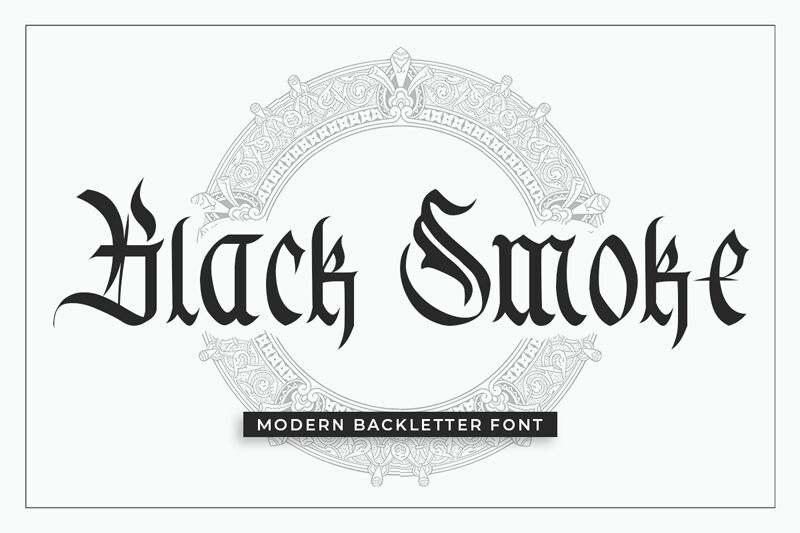
Blacksmoke
Black Smoke, the brainchild of brilliant designer Kong Font, is a captivating gothic font that injects a modern twist into its aesthetic. With a semi-light weight and condensed width, it exudes an air of sophistication and elegance. This versatile typeface is perfect for creating dramatic headlines, sleek logos, or edgy invitations. Its unique blend of contemporary style and gothic charm makes it well-suited for various projects such as fashion magazines, music album covers, and striking advertisements. Embrace the allure of Black Smoke and let your creativity ignite in a world where modernity meets tradition.